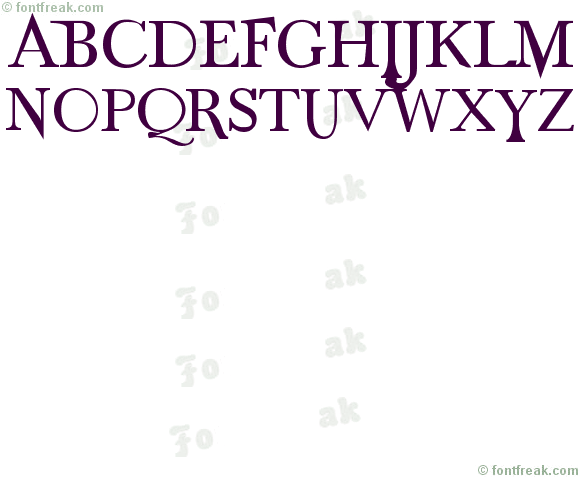
Old Dog, New Tricks Caps
Discover the charm of the Old Dog New Tricks font by Gregfonts, a captivating display typeface that stands out with its unique personality. This font is categorized as a decorative display typeface, making it perfect for projects that require a touch of whimsy and creativity. The visual characteristics of Old Dog New Tricks are defined by its bold, uppercase letters that exude a playful yet sophisticated vibe. The stroke weight is consistent, giving the letters a sturdy appearance, while the slight contrast in some characters adds depth and visual interest. The spacing is well-balanced, allowing for easy readability without sacrificing style.
Ideal for various applications, this font shines in contexts such as wedding invitations, where its distinctive flair can enhance the romantic atmosphere. It also works beautifully for movie posters, capturing attention with its bold presence. Restaurant menus can benefit from Old Dog New Tricks by adding a fun twist to the dining experience, while marketing materials like flyers and brochures can leverage its unique style to stand out in crowded spaces. The target audience for this font includes graphic designers, small business owners, and content creators who seek to make a memorable impression with their work.
What truly sets the Old Dog New Tricks font apart is its ability to blend tradition with innovation. Despite its playful nature, it carries an air of timelessness, making it versatile enough for both contemporary and classic designs. Whether you're crafting a modern brand identity or giving a nostalgic nod to the past, this font is a fantastic choice. Don't miss out on the opportunity to bring a fresh touch to your creative projects with the Old Dog New Tricks font free download, a remarkable addition to your typography toolkit.